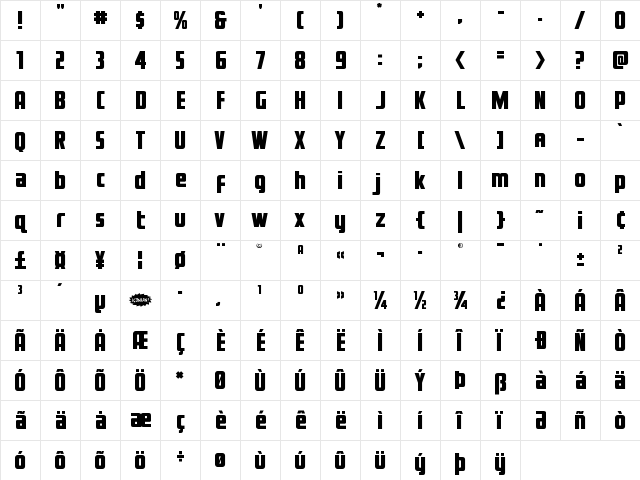
Voyage Fantastique Straight Regular
Design Context for Voyage Fantastique Straight Typeface
Voyage Fantastique Straight offers clean, dependable letterforms without strong stylistic allegiance, making it a practical choice for designers who need flexibility.